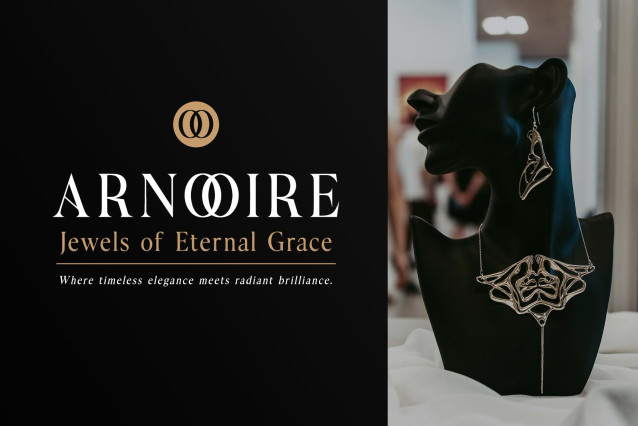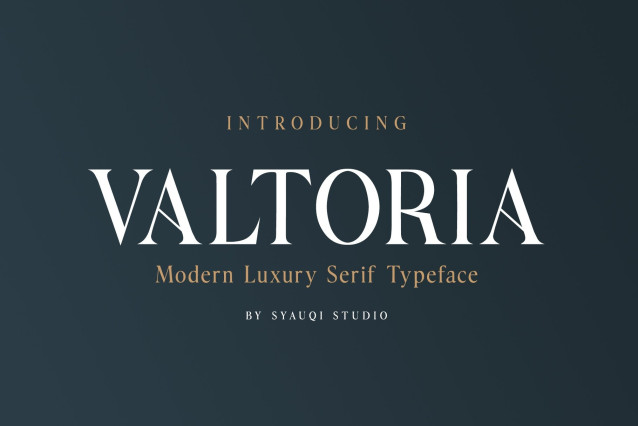
Valtoria Font
Valtoria Font is a modern serif typeface that blends timeless elegance with contemporary sophistication. Designed with refined details and balanced proportions, Valtoria brings a sense of luxury, class, and exclusivity to any project.
Features: uppercase, lowercase, numerals, punctuation, and stylish alternates, all crafted with precision for clean, professional typography.